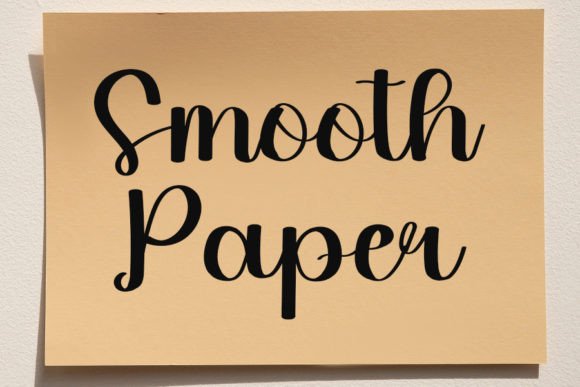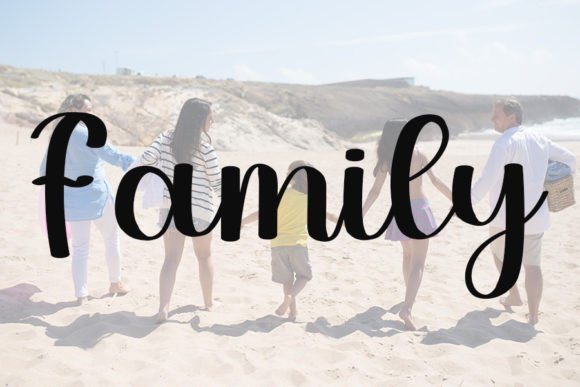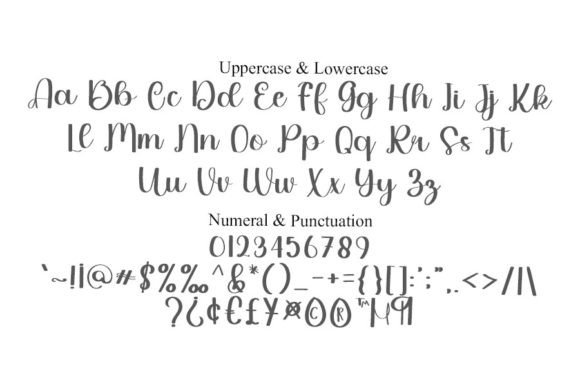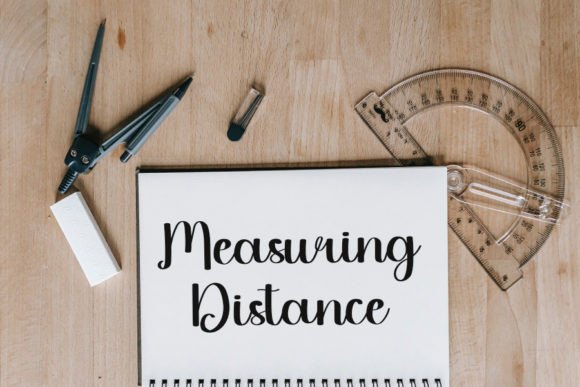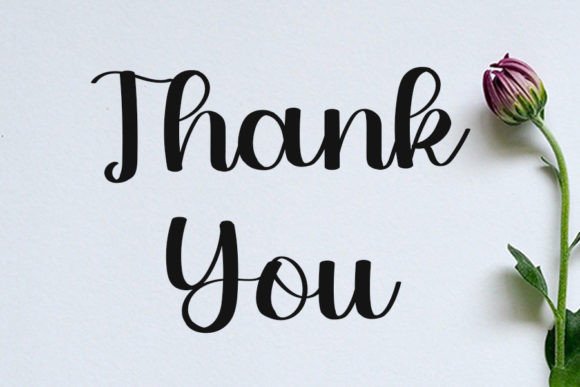
Writing Font
About Writing Font Download
The Writing Font Download is a cool handwritten script designed with a modern yet timeless style. Inspired by classic calligraphy, it combines smooth strokes and balanced shapes. It is not too thin and not too bold, which makes it versatile for both small details and large displays. Whether used for branding, invitations, or posters, Writing adds clarity and style to your projects.
A Cool Script with a Modern Vibe
The Writing script font blends elegant handwritten strokes with a clean, spotless form. As a result, it feels creative and sophisticated. Furthermore, it adapts seamlessly to both personal and professional projects, from greeting cards to editorial layouts.
Handwritten fonts add a personal touch to any occasion. The Writing Font is ideal for wedding invitations, thank you notes, birthday cards, and seasonal greetings. Because of its balanced flow, every message looks polished and heartfelt. In addition, it makes your stationery stand out with beauty and warmth.
Branding and Logo Design with Writing Font
Typography plays a key role in brand identity. The Writing handwritten font is a great choice for boutique logos, product packaging, and promotional designs. Its modern handwritten style gives businesses a professional yet approachable look. Therefore, it is especially suitable for creative and lifestyle brands.
Posters, Titles, and Creative Displays
The Writing Font Download is also excellent for posters, banners, book covers, and magazines. It remains clear at all sizes while adding sophistication to the layout. Consequently, it is a reliable choice for designers who want elegance and readability together.
In today’s fast-moving digital world, fonts need to be eye-catching and easy to use. The Writing typeface integrates smoothly into Instagram posts, Pinterest graphics, YouTube thumbnails, and blogs. Because of its stylish handwritten strokes, it ensures online content feels modern and engaging.
Why Designers Choose Writing Typeface
Designers love fonts that balance beauty with usability. While some handwritten scripts are too decorative, the Writing handwritten script keeps its charm while staying clear. This makes it a dependable option for personal crafts and professional design projects alike. Moreover, its timeless style means it will not go out of trend.
Add Modern Elegance to Your Projects Today
If you are looking for a handwritten script that feels cool, modern, and versatile, the Writing Font Download is the perfect choice. From invitations and greeting cards to posters, branding, and social media, it enhances every design with elegance. Finally, download Writing today and bring your creative projects to life with style.